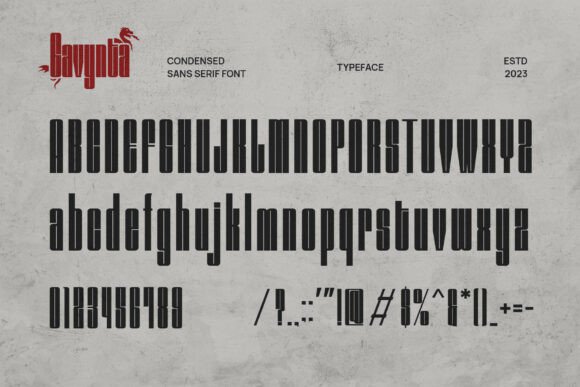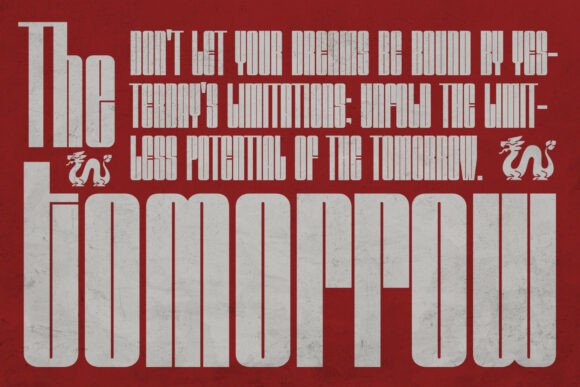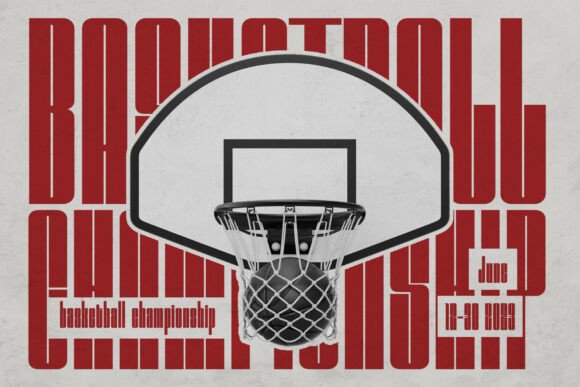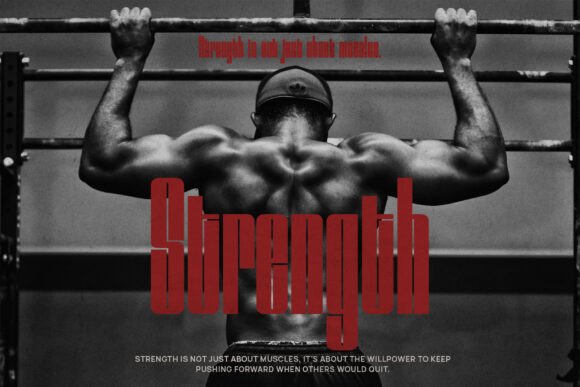
Gavynta Font: Elevate Your Design with Modern Elegance
In the world of typography, a well-crafted font can make all the difference in elevating your design to the next level. Introducing Gavynta, a modern condensed sans serif font that embodies elegance and sophistication. This versatile font is perfect for a wide range of design applications, from branding and logos to invitations, magazines, and product packaging.
The Gavynta Advantage
Gavynta’s sleek and modern design makes it an ideal choice for designers and crafters looking to add a touch of refinement to their work. Its condensed sans serif style ensures that your text remains clear and legible, even at smaller font sizes. This makes it perfect for use in a variety of contexts, from digital media to print materials.
Key Features of Gavynta Font
- Modern Sans Serif Style: Gavynta boasts a clean and contemporary sans serif design that is sure to impress.
- Elegant and Sophisticated: The font’s elegant lines and curves make it perfect for high-end branding, luxury packaging, and refined editorial content.
- Condensed Design: Gavynta’s condensed style allows for efficient use of space, making it ideal for layouts where text needs to be concise and impactful.
- Highly Versatile: Use Gavynta for a wide range of design applications, including logos, invitations, magazines, product packaging, and more.
Why Choose Gavynta?
In a sea of fonts, Gavynta stands out for its unique blend of modernity and elegance. Here are just a few reasons why designers and crafters are choosing Gavynta:
- Enhance Your Brand’s Visual Identity: With Gavynta, you can create a cohesive and sophisticated visual brand that resonates with your target audience.
- Streamline Your Design Process: Gavynta’s versatility and legibility make it easy to use across various design applications, saving you time and effort.
- Stand Out from the Crowd: Gavynta’s distinctive style ensures that your design will stand out in a crowded marketplace, capturing attention and driving engagement.
Tips for Using Gavynta Effectively
To get the most out of Gavynta, consider the following design tips:
- Experiment with Font Sizes: Gavynta’s condensed style works well at a range of font sizes, from large headings to smaller body text.
- Play with Line Spacing: Adjusting line spacing can help create visual interest and add emphasis to specific text elements.
- Pair with Complementary Fonts: Combine Gavynta with other fonts to create a unique and visually appealing typographic hierarchy.
Gavynta is a game-changing font that offers designers and crafters a powerful tool for elevating their work. With its modern sans serif style, elegant lines, and condensed design, Gavynta is the perfect choice for a wide range of design applications. Download Gavynta today and discover the impact that high-quality typography can have on your designs.